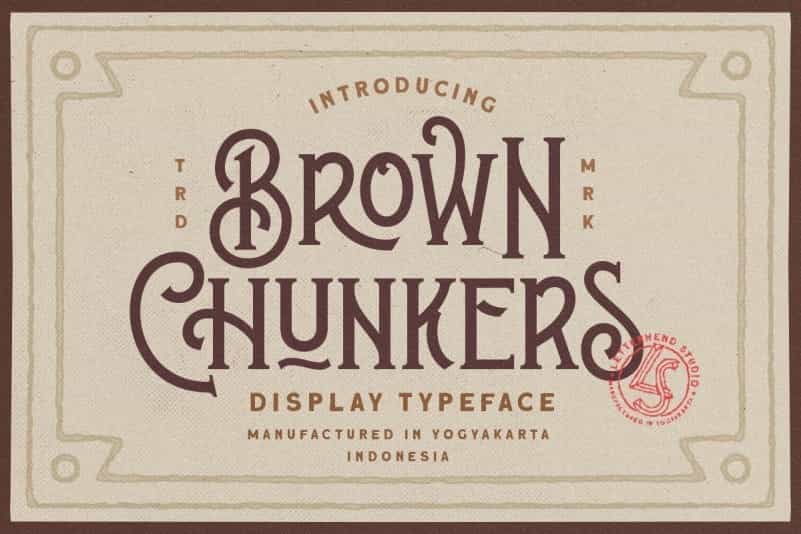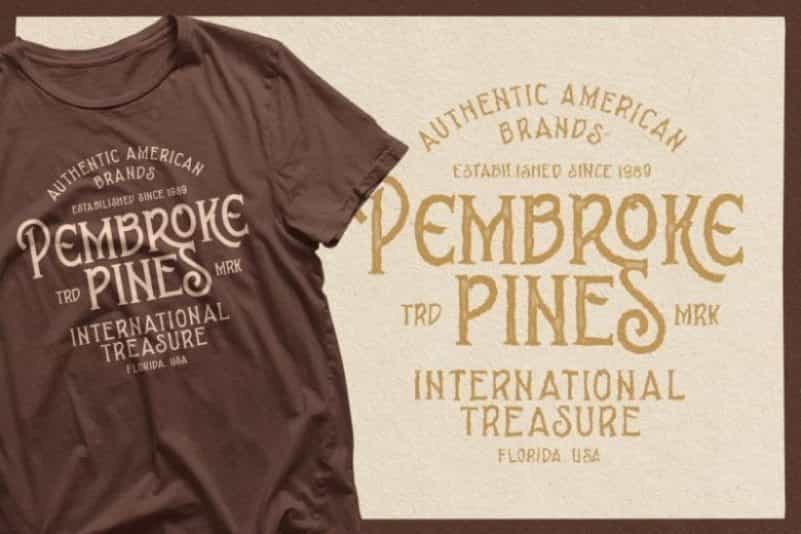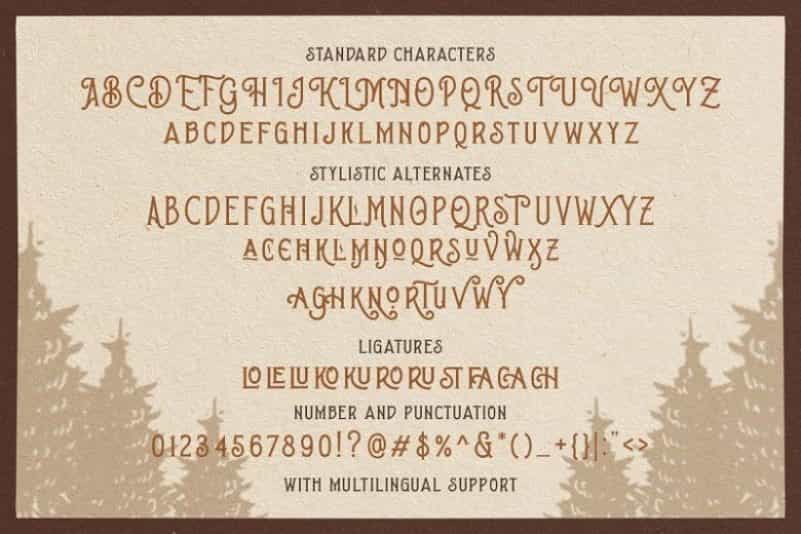
Let me present to you our newest display typeface called Brown Chunkers. A special serif typeface with a lot of alternates, swashes and ligatures that can make your lettering / logotype more exciting. The clear and neat of a serif together with the swirling swashes makes this font a unique one!